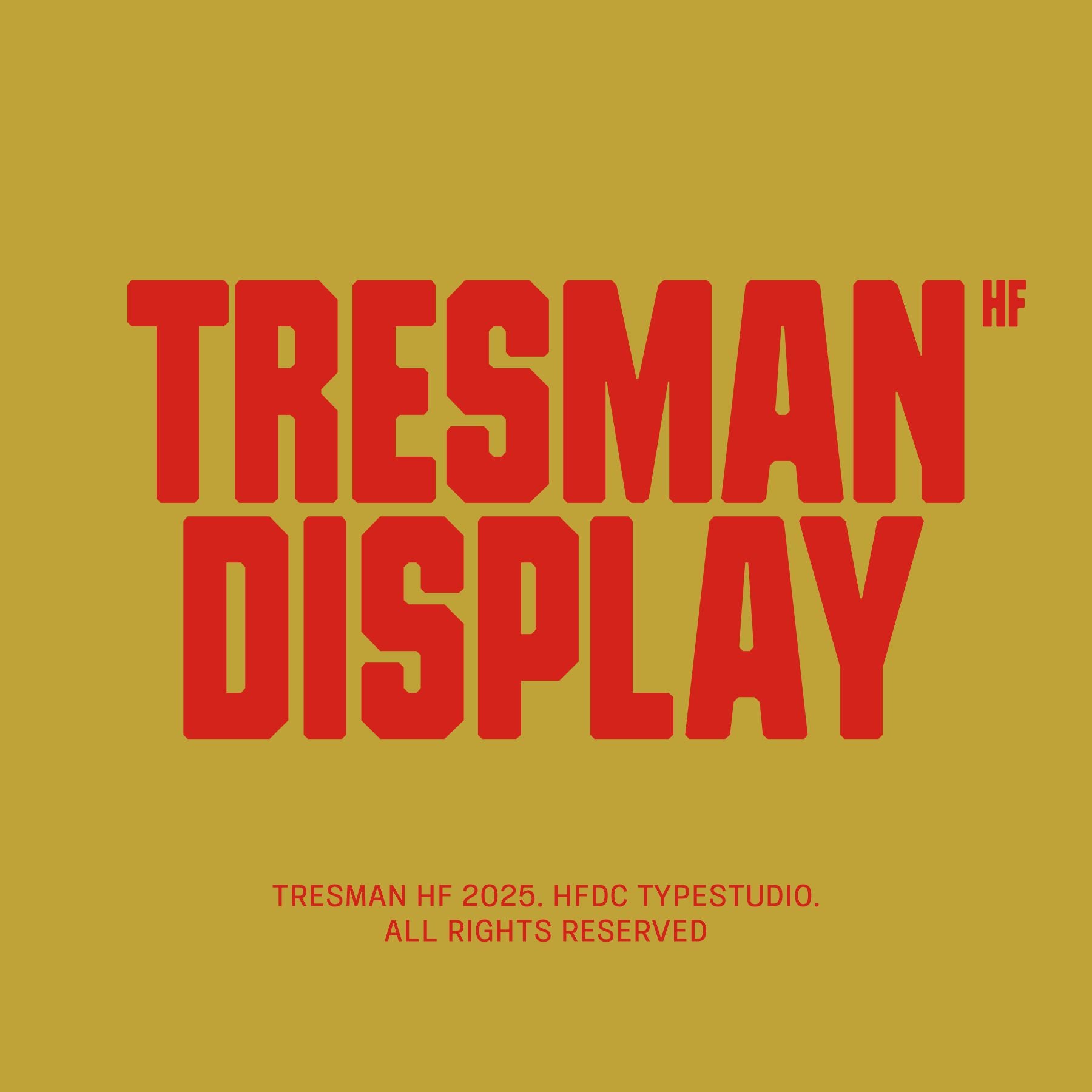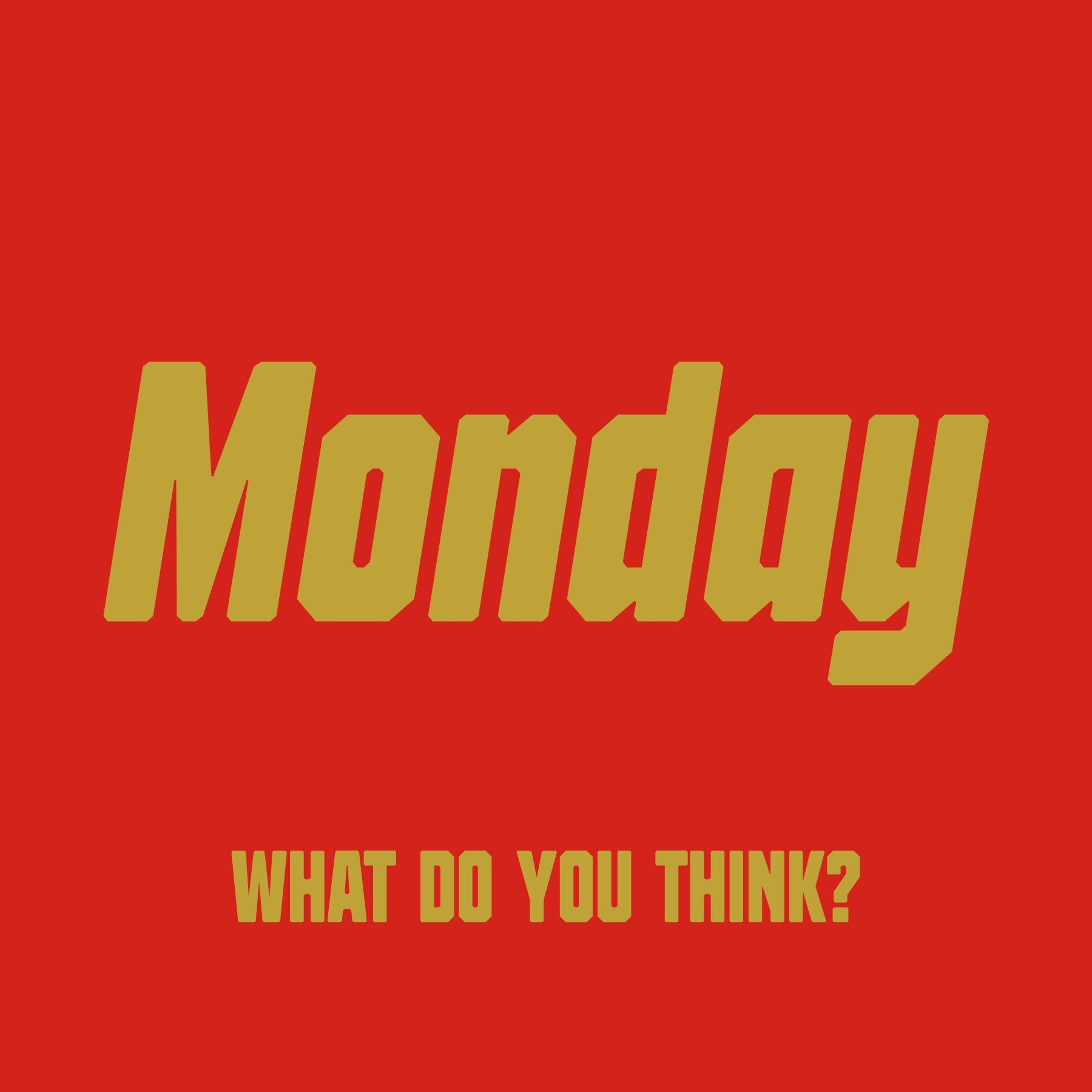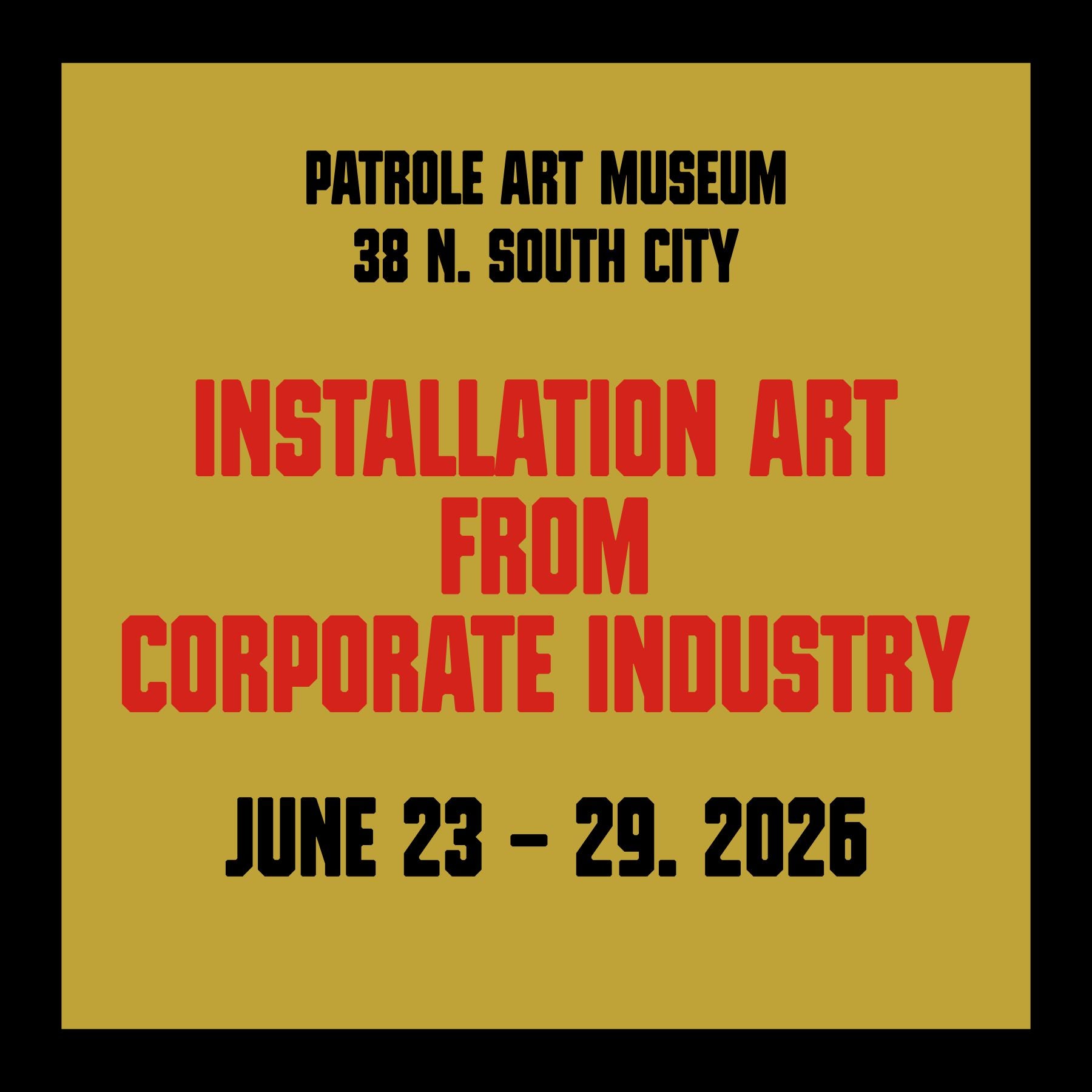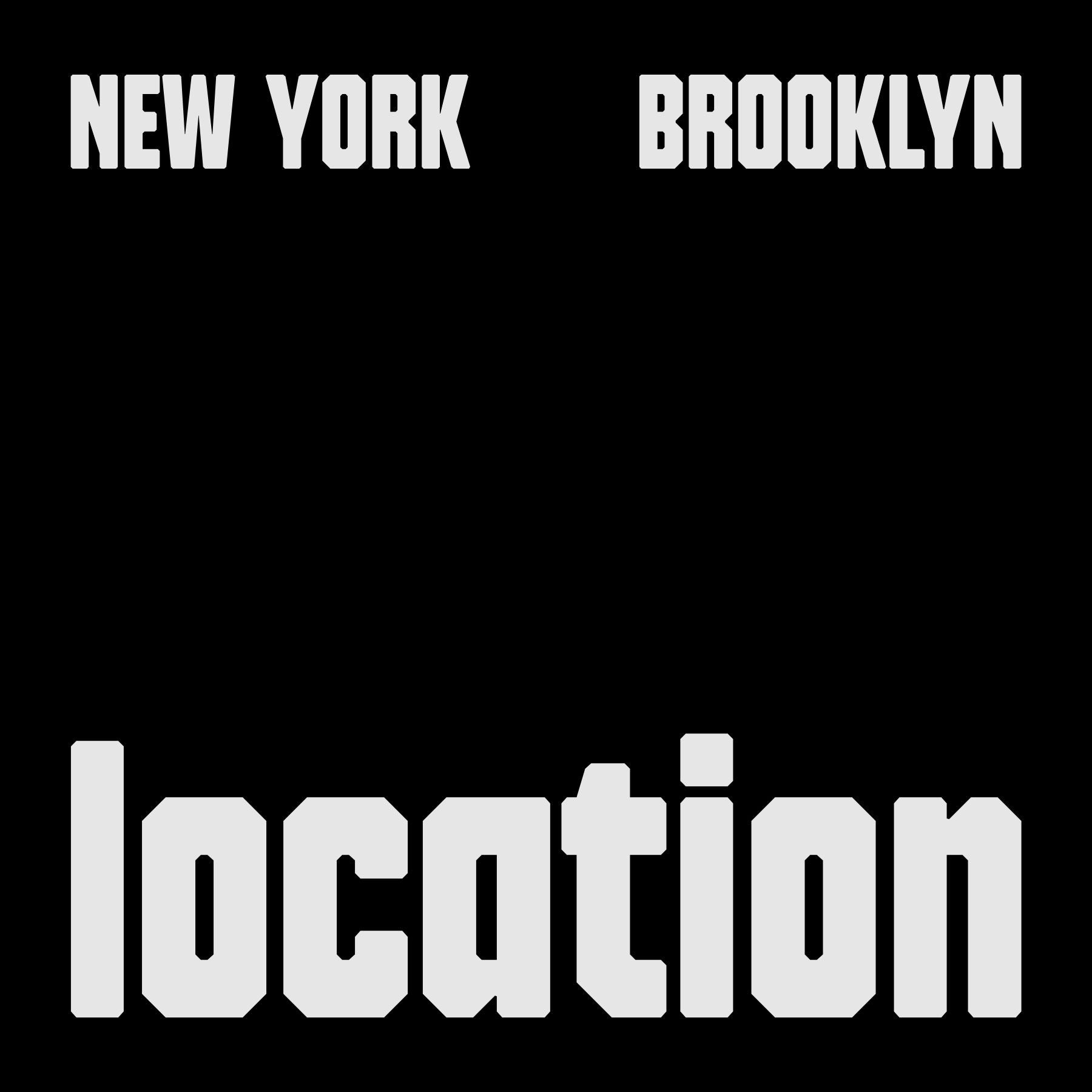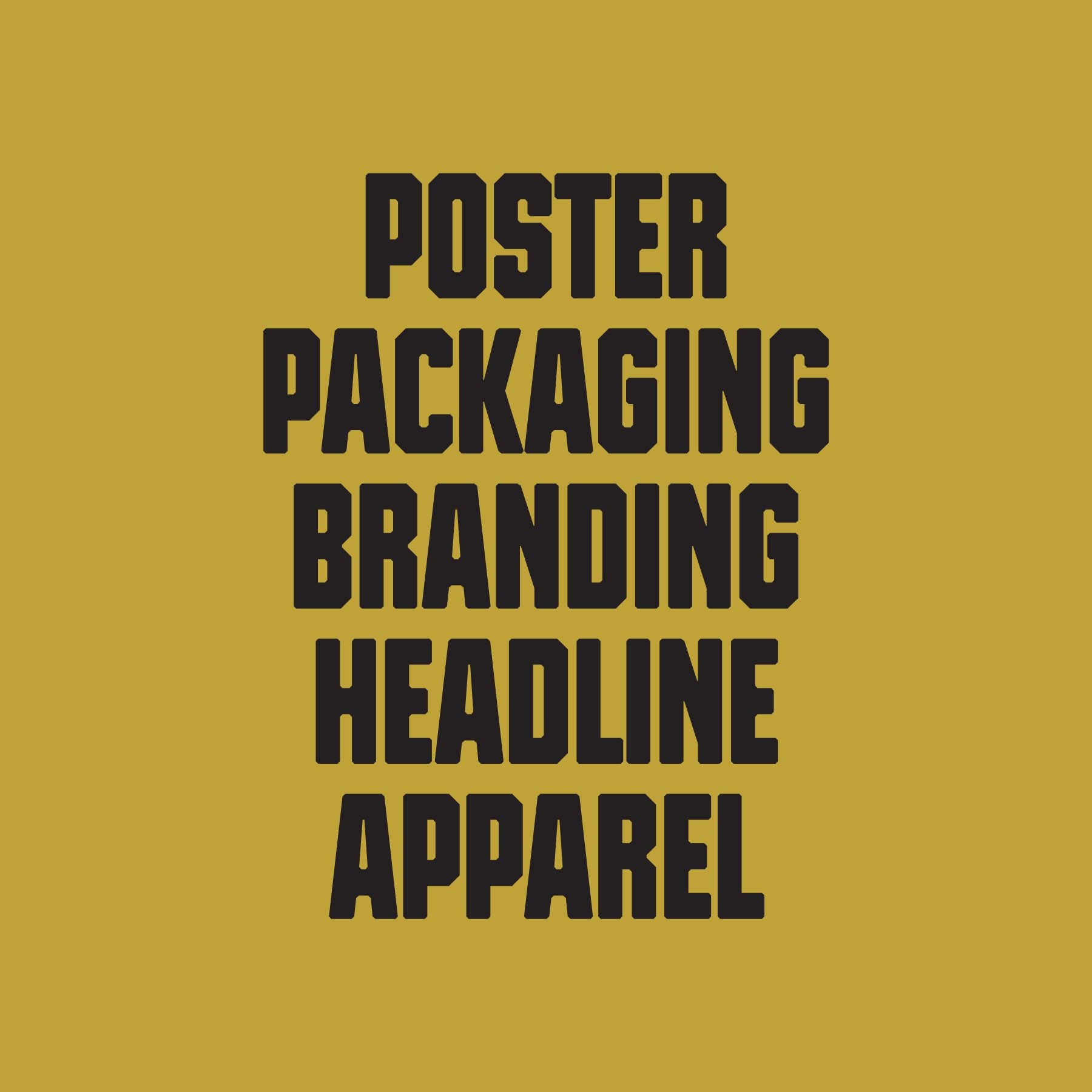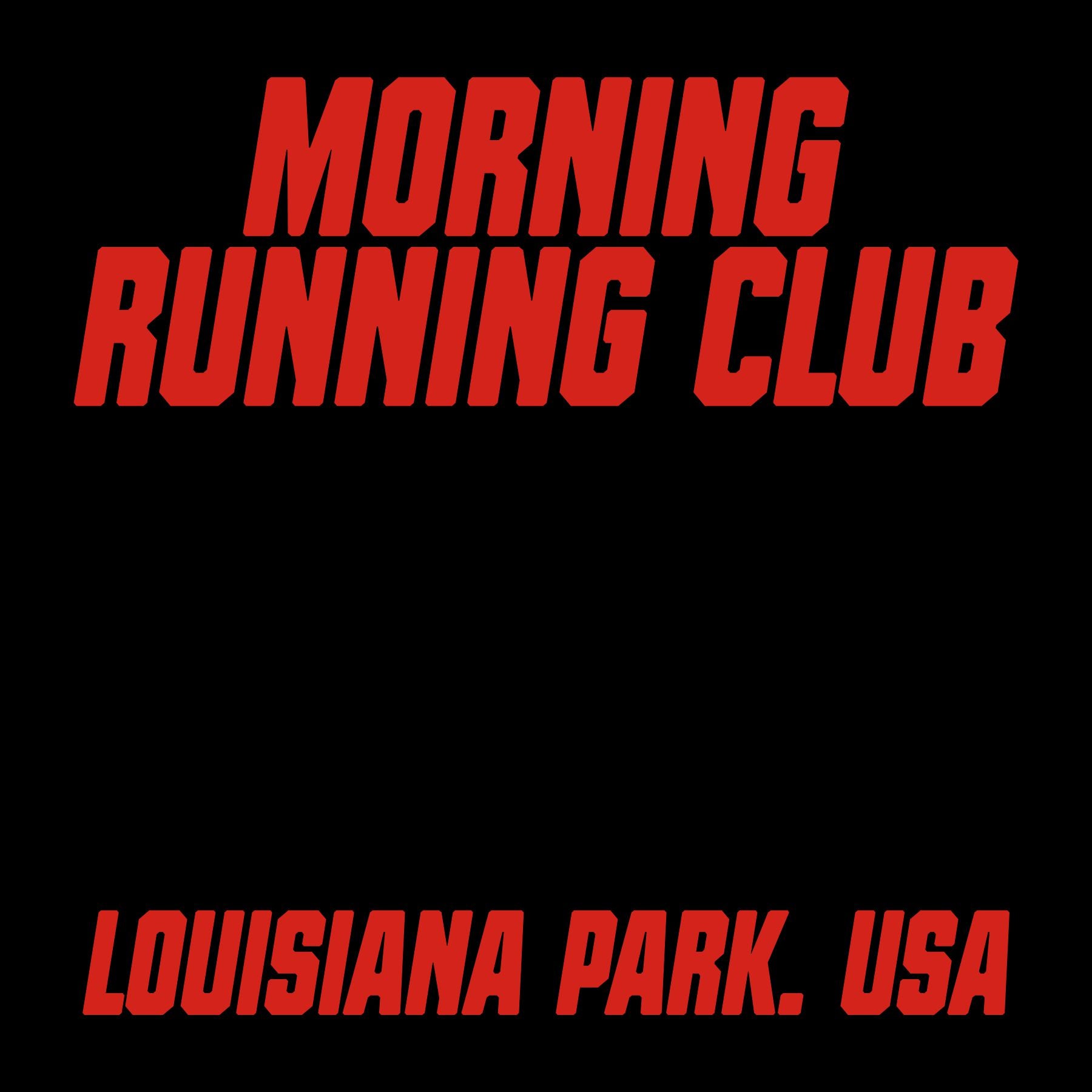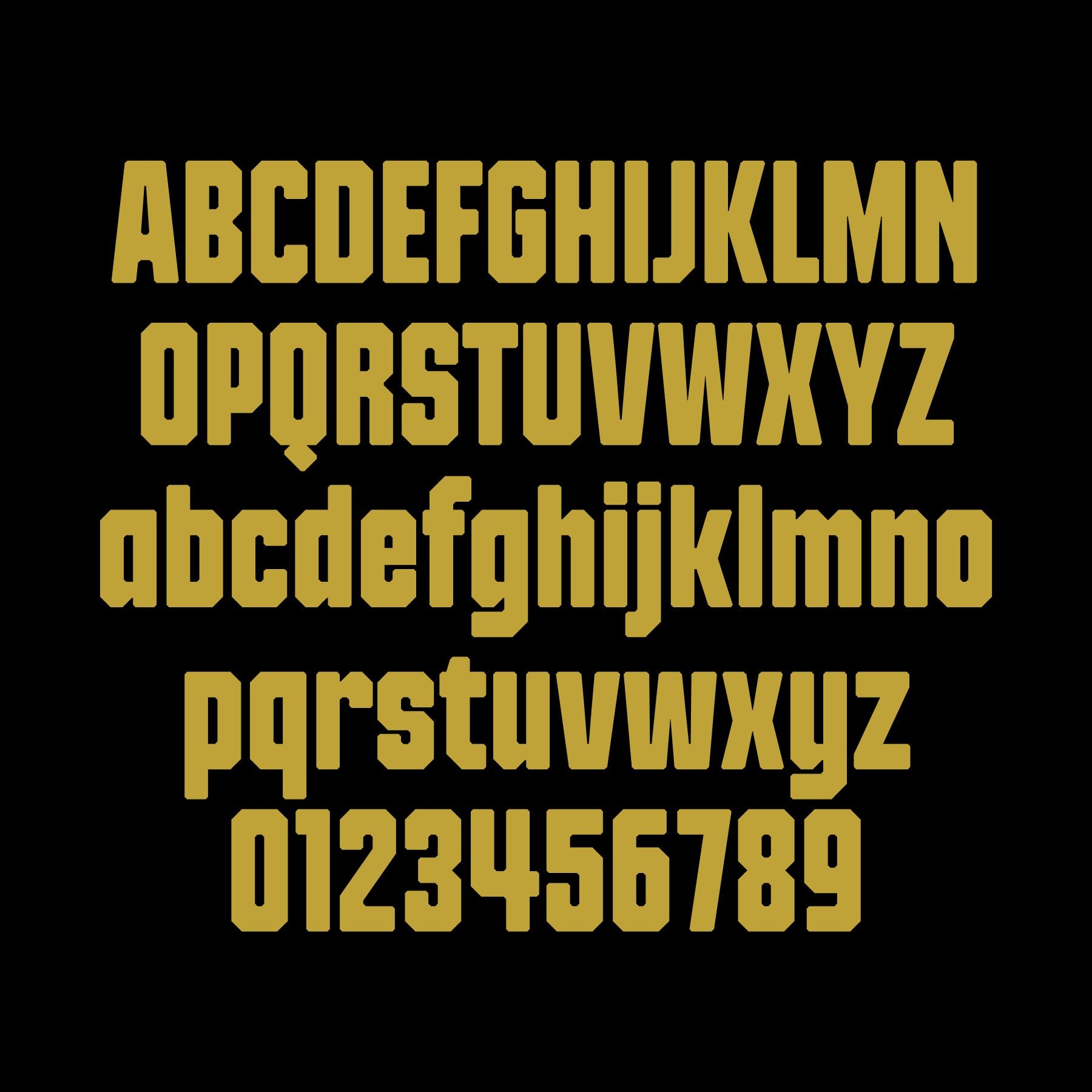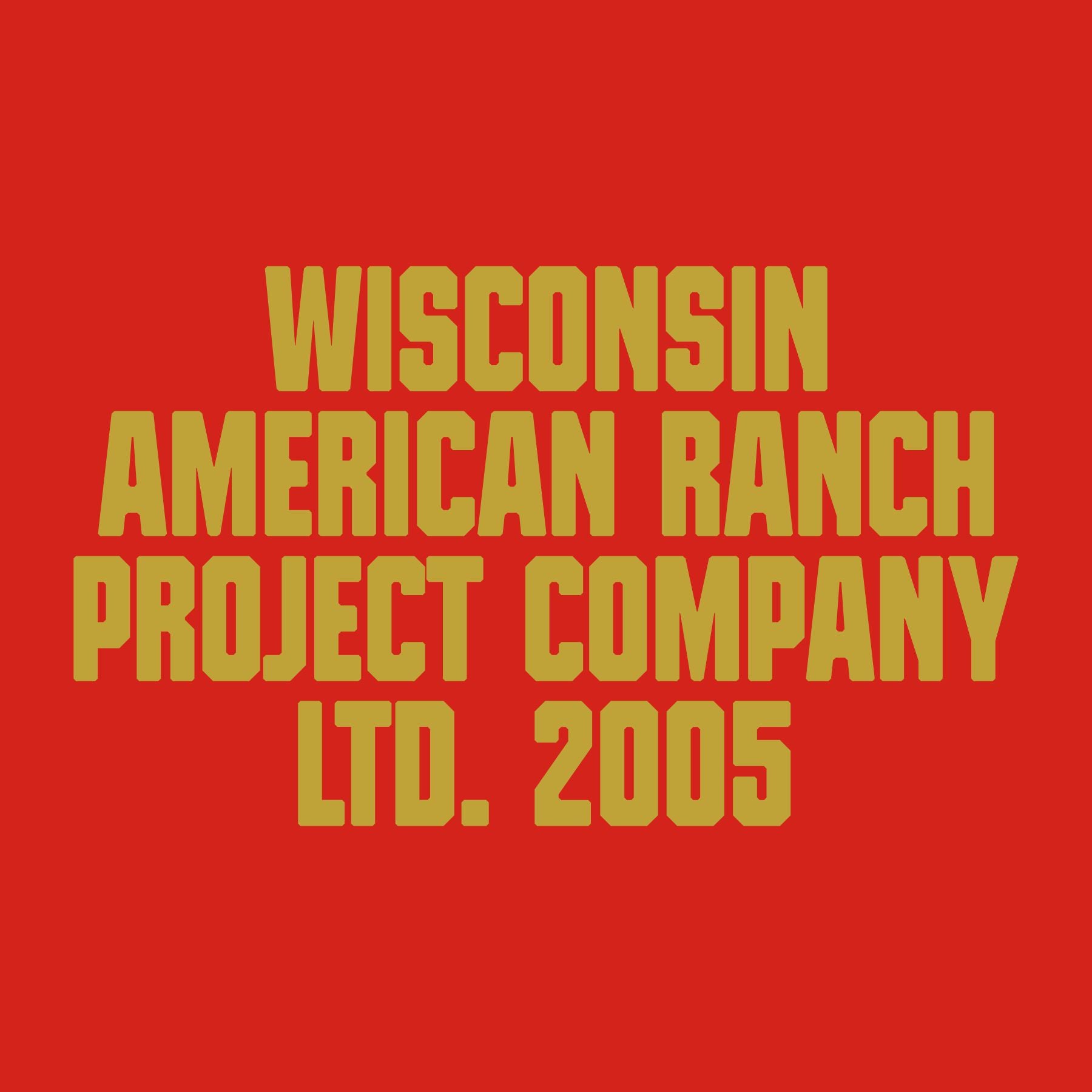
Tresman Display Font
Tresman is a bold, confident display font crafted for impact. Inspired by vintage athletic and racing typography, Tresman brings energy and strength to your designs. Available in both Regular and Italic styles, it provides versatility for a variety of creative projects — from sports branding and team logos to posters, apparel, signage, and digital media.
Tresman Display Font is a bold, condensed typeface inspired by vintage athletic and racing typography, available in Regular and Italic styles. It is designed for impactful headlines and offers versatility for various creative projects.